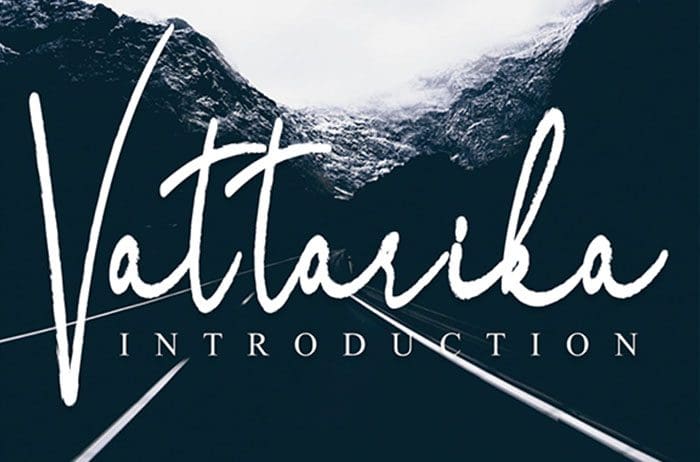
Free Vattarika Brush Font
Vattarika Brush Font
Free Vattarika fun brush font, created by using a brush pen. Clean and a little bit quirky, this font is the perfect fit for all of your logos, branding, social media, and crafty DIY projects. Designed this font by Andika Studio. You can also search more freeĀ Brush Fonts. Thanks!